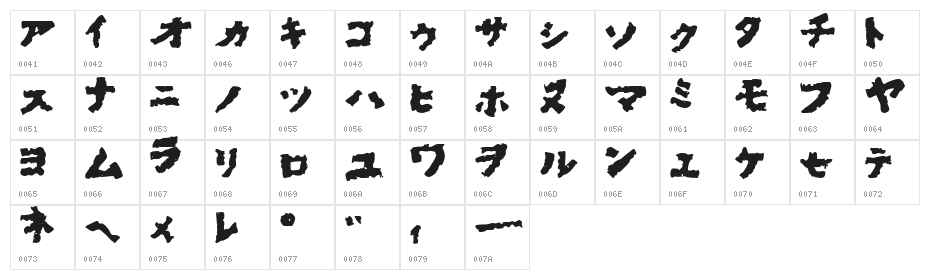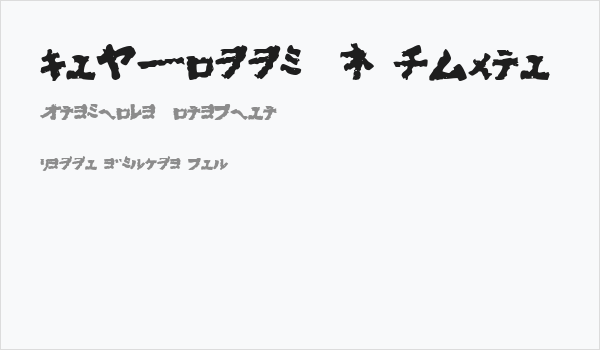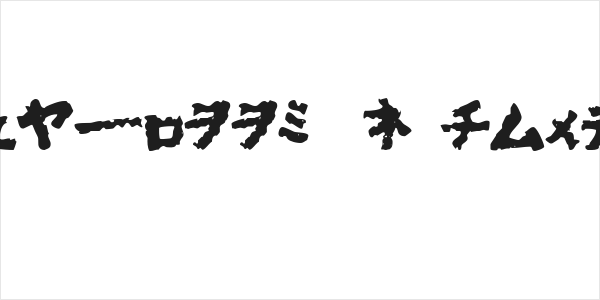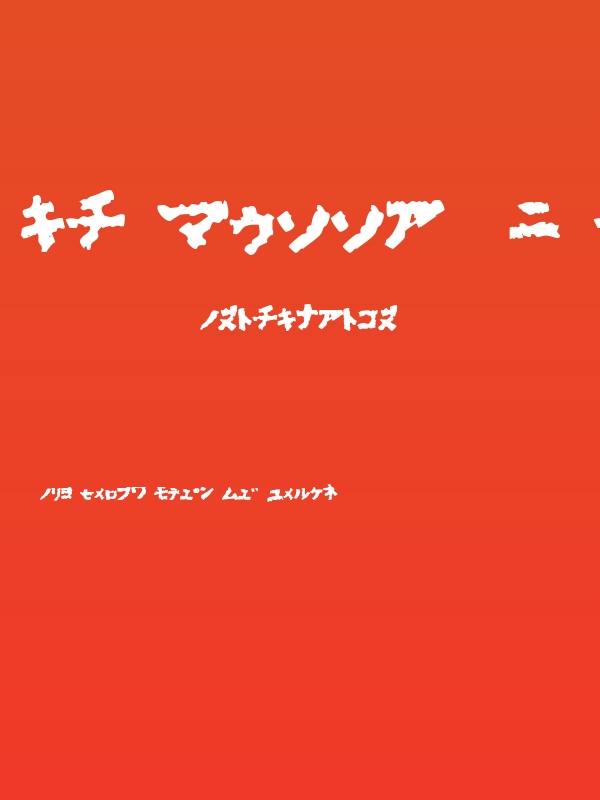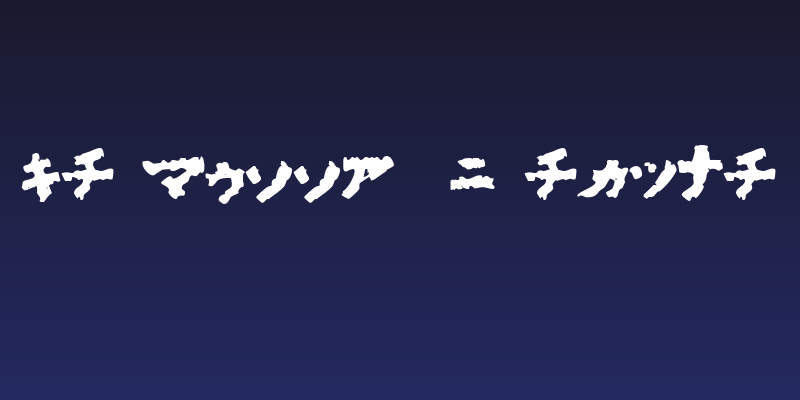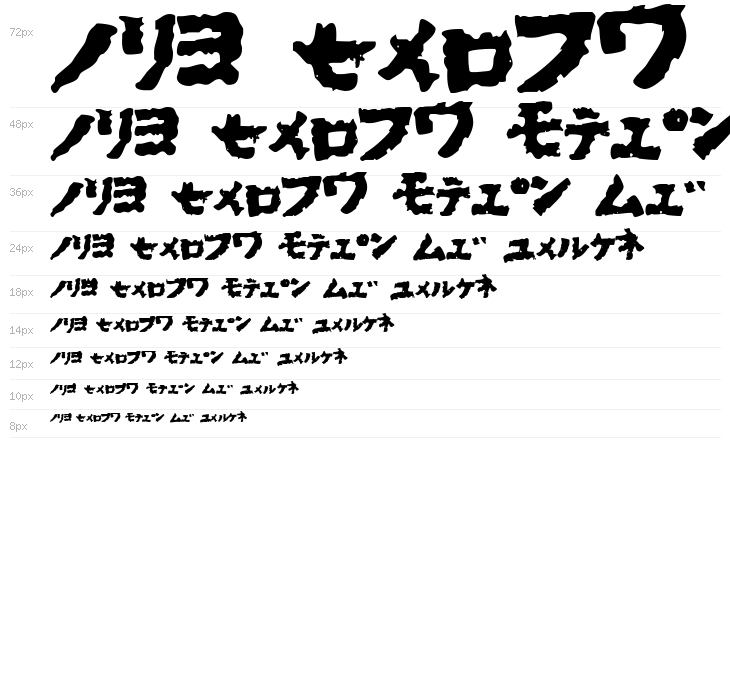
Godzilla's Ofuro Font
Godzilla's Ofuro Description
This font features a bold and rugged style, reminiscent of traditional Japanese calligraphy. The characters are thick and heavily textured, giving a sense of strength and dynamism. The strokes are uneven, with a hand-painted appearance that adds a unique, artistic flair. This font captures a sense of movement and energy, making it stand out with its distinctive, bold presence. The overall design is both traditional and modern, blending cultural elements with a contemporary twist.
| Overall Style | Traditional, Artistic |
| Use Case | Logos, Posters, Artistic Designs |
| Proposed Projects | Ideal for projects that require a strong cultural or artistic element, such as posters, branding for Japanese-themed events, or artistic book covers. |